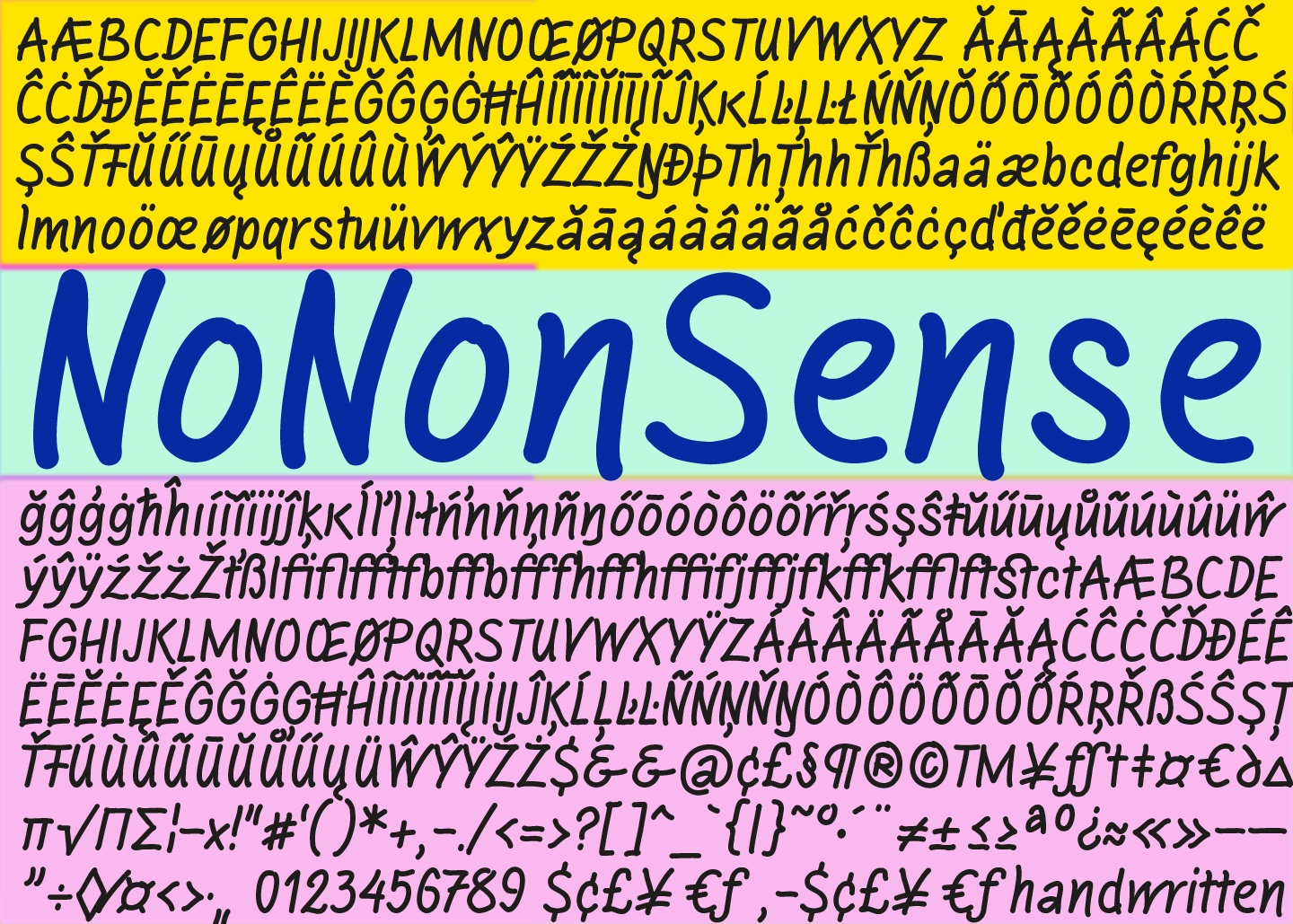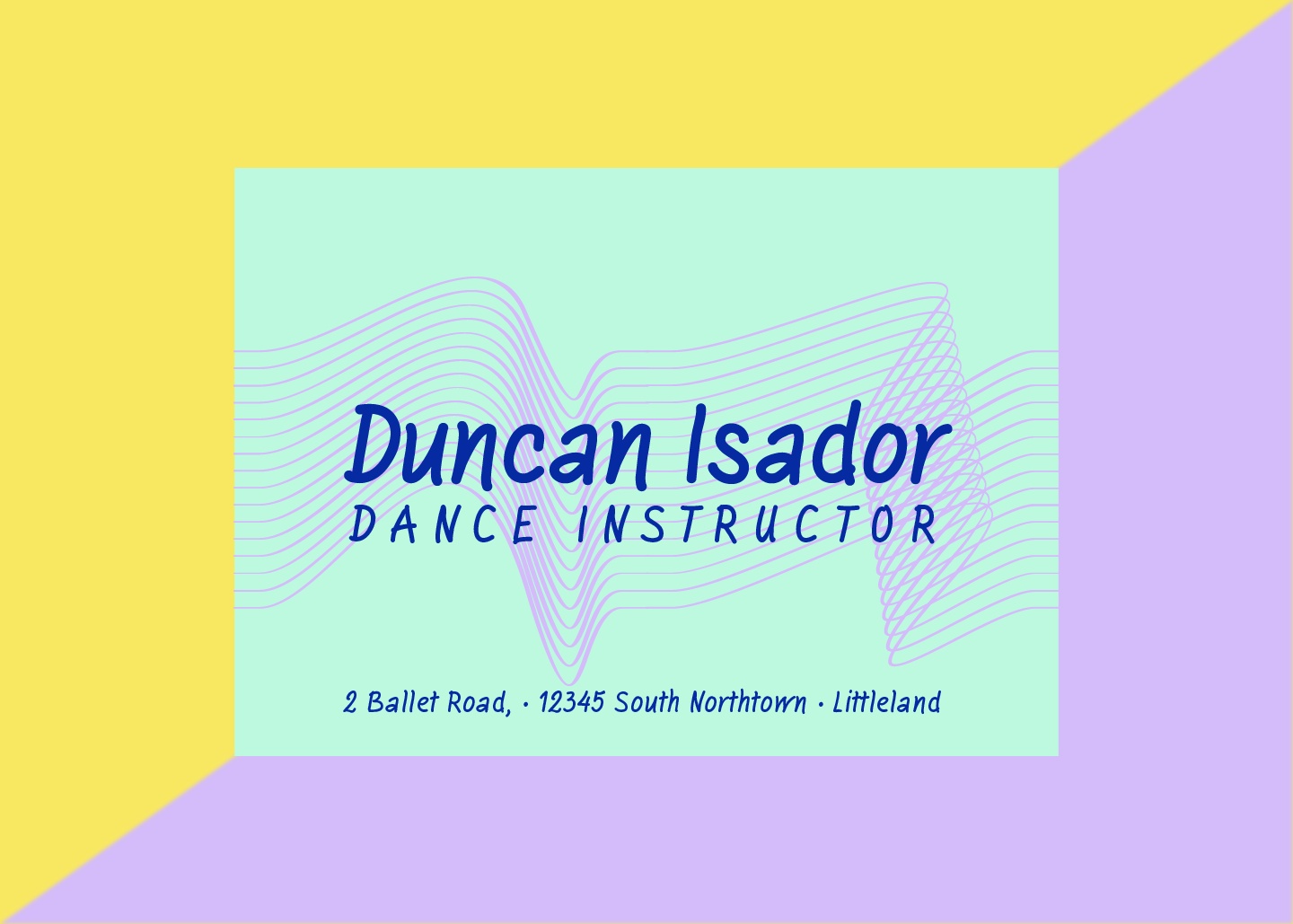
NoNonSense Font
NoNonSense Font are designed and shared by Gert Wiescher. NoNonSense is a handwritten font in a no nonsense style, so frills or fancy curls, just a straightforward handfont, for a straightforward price. Enjoy!